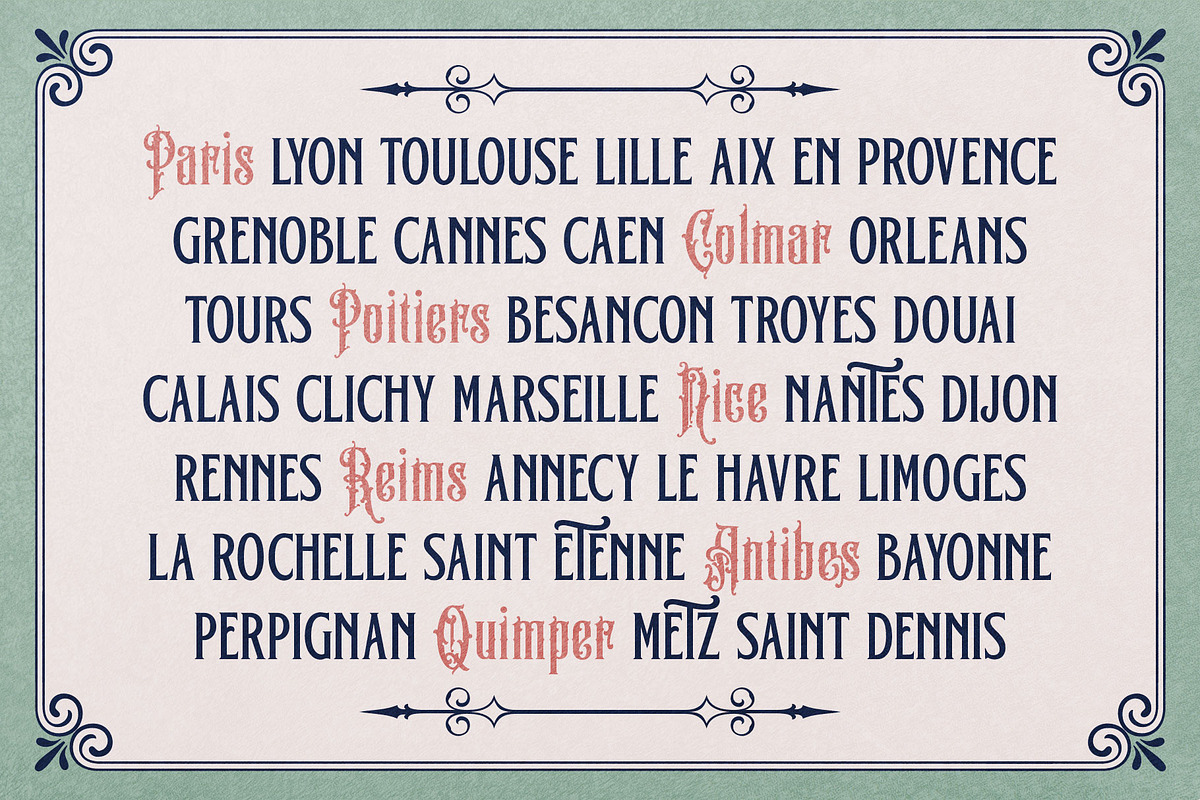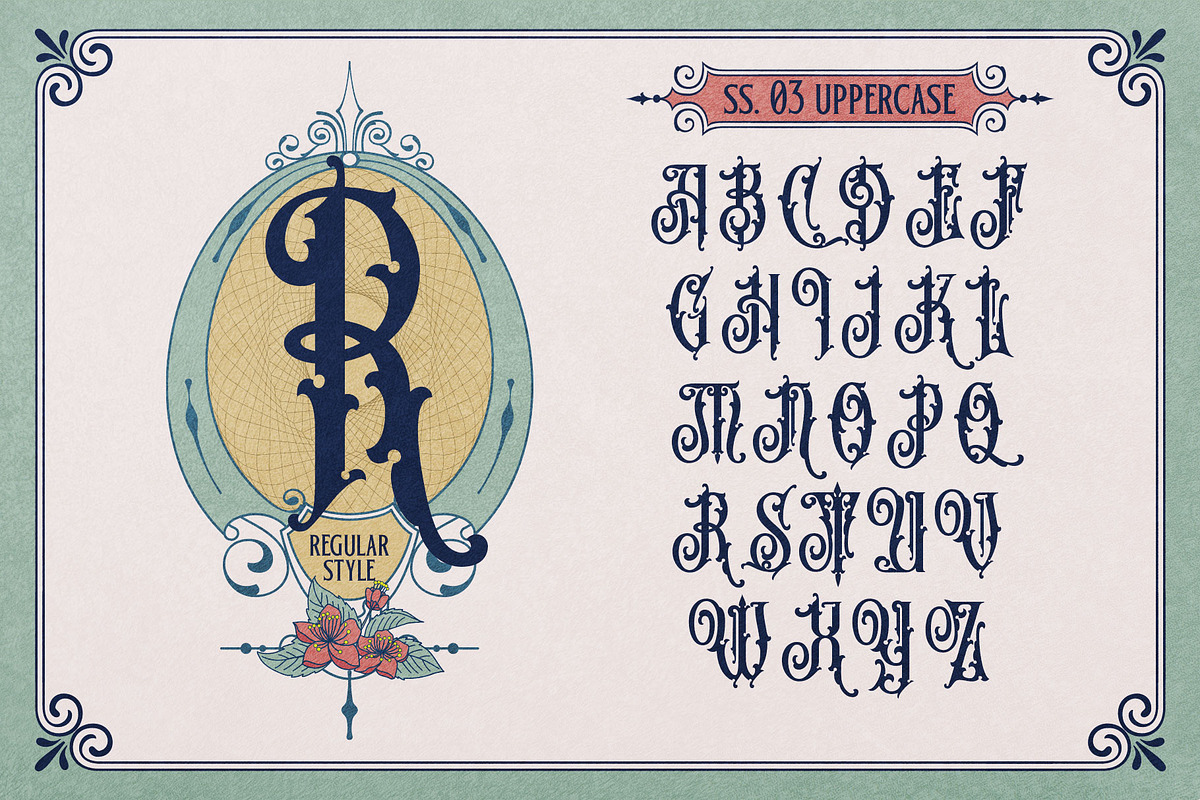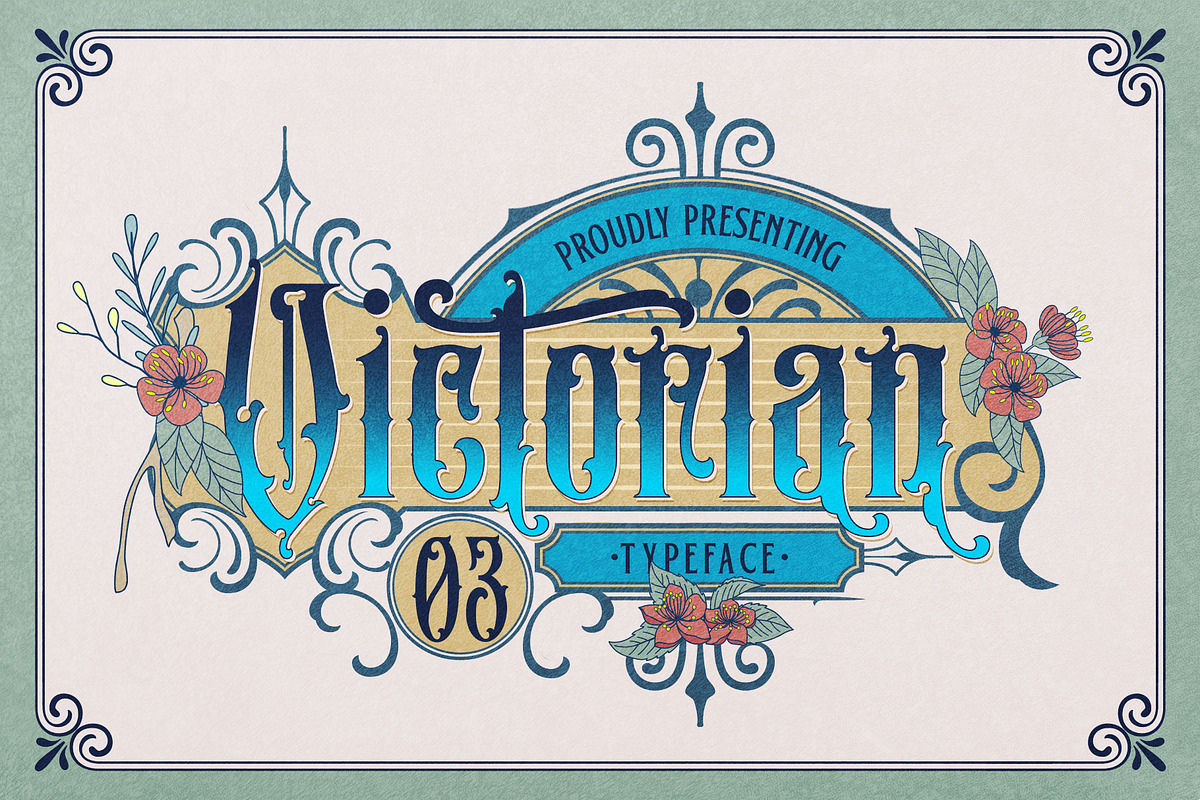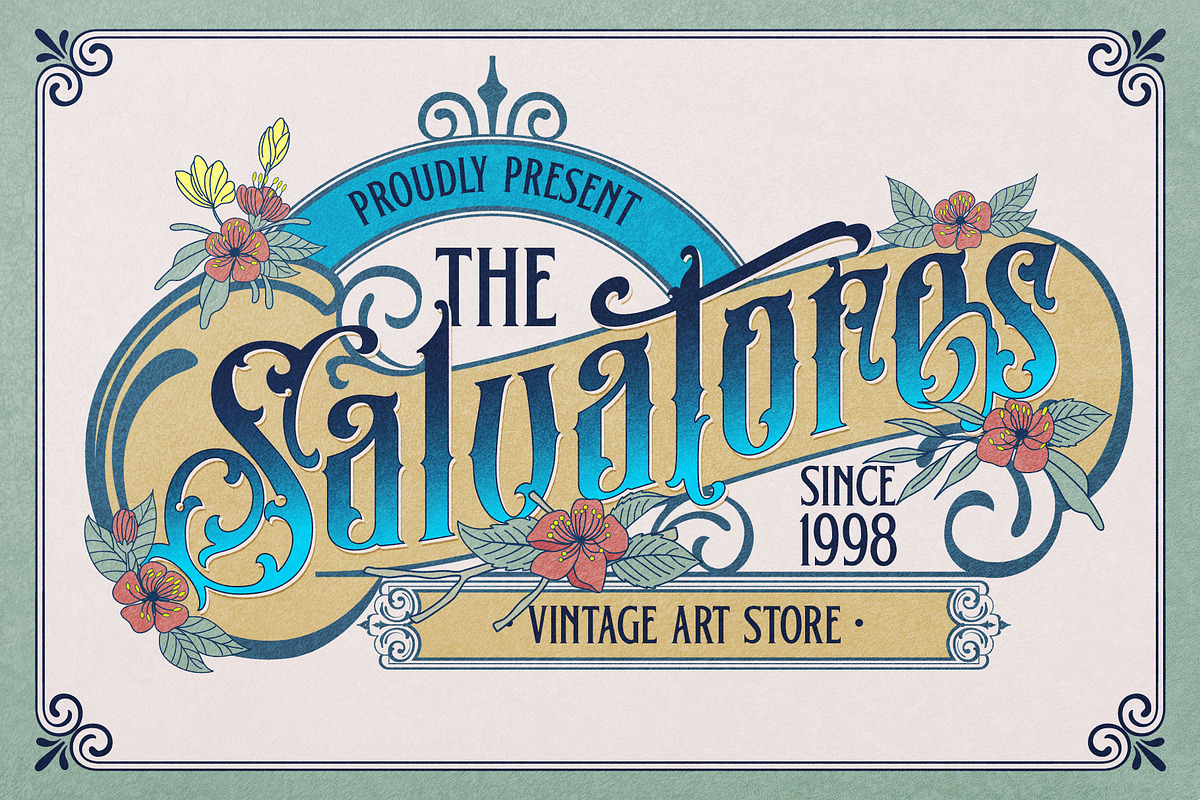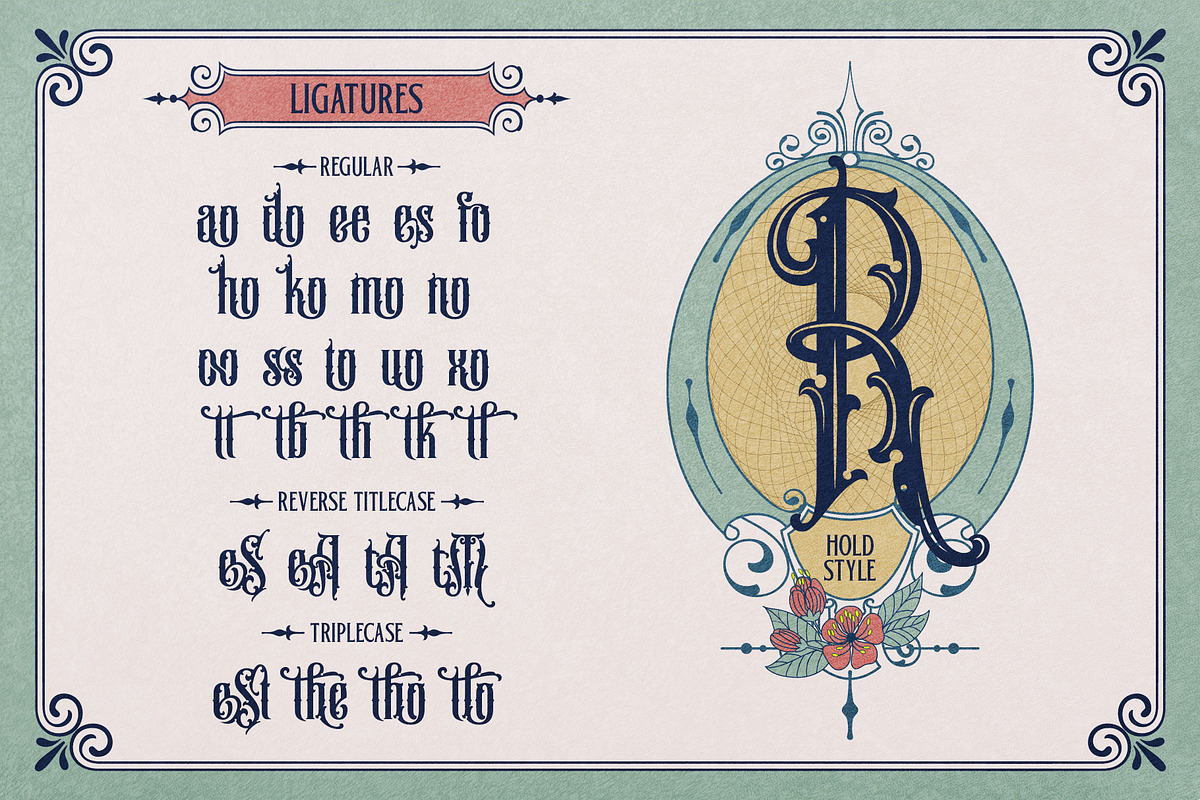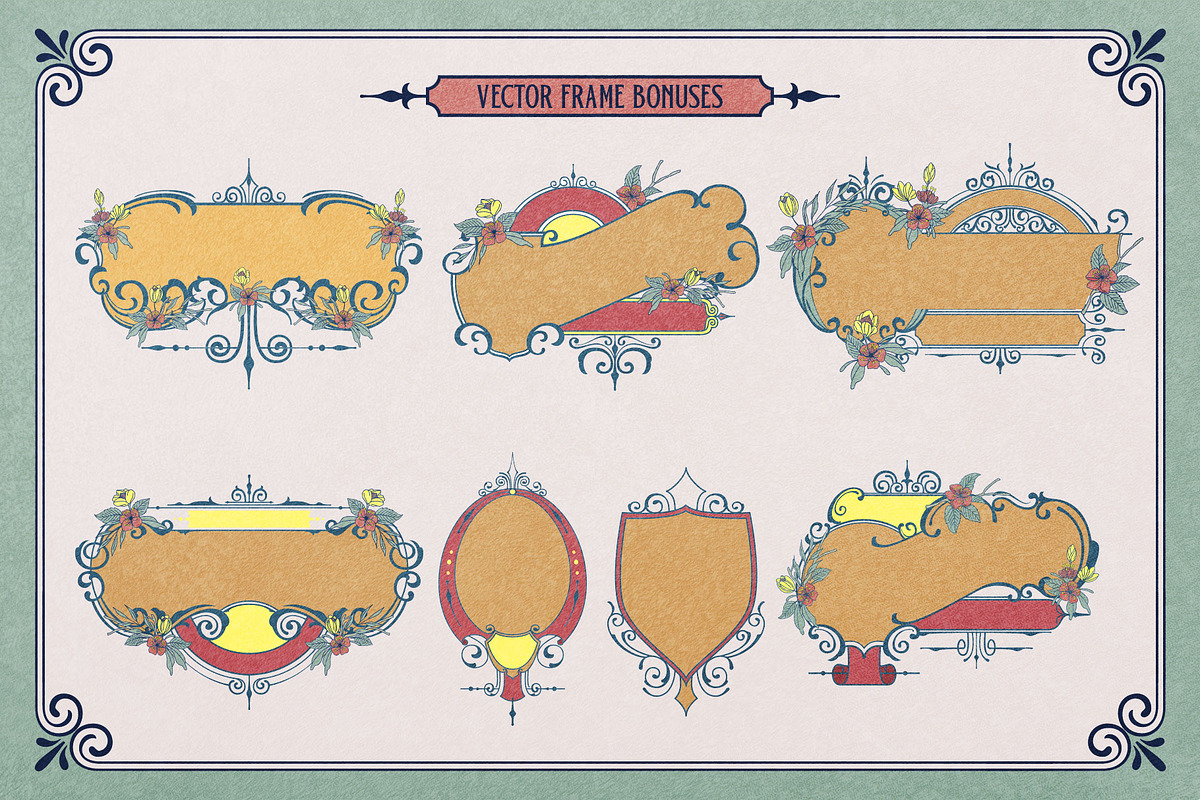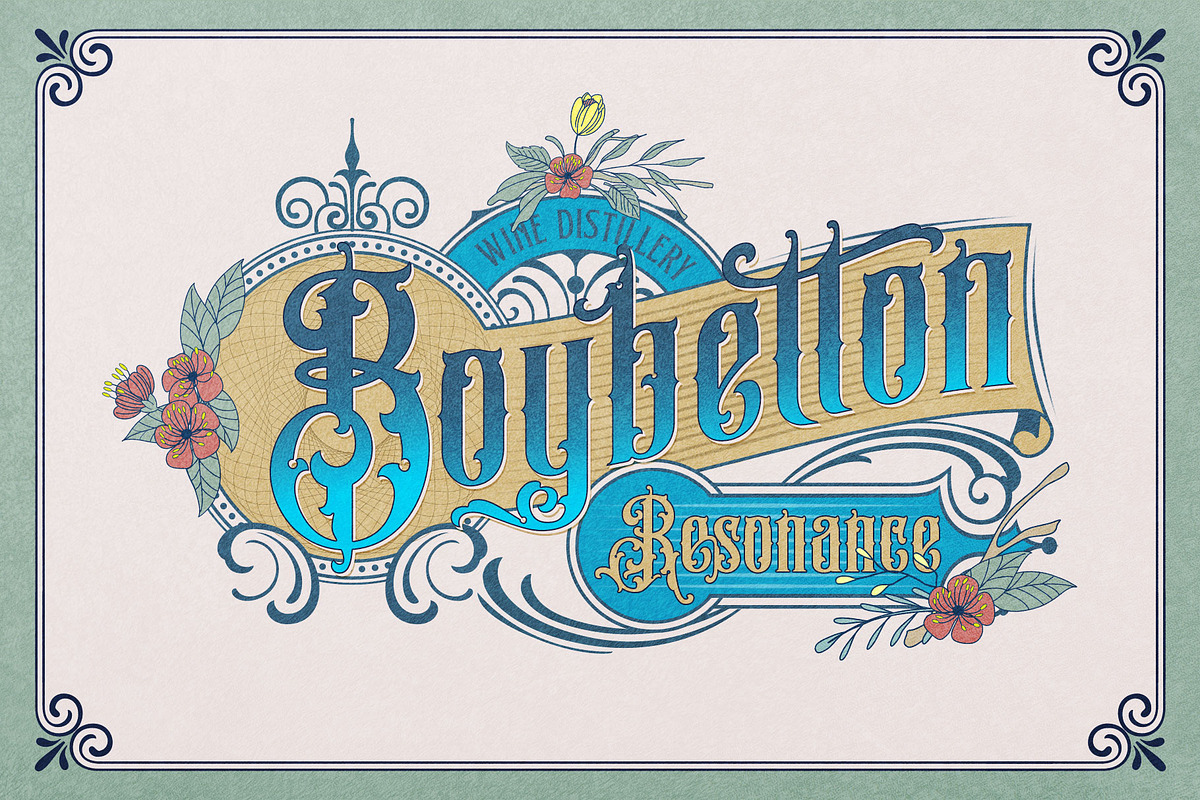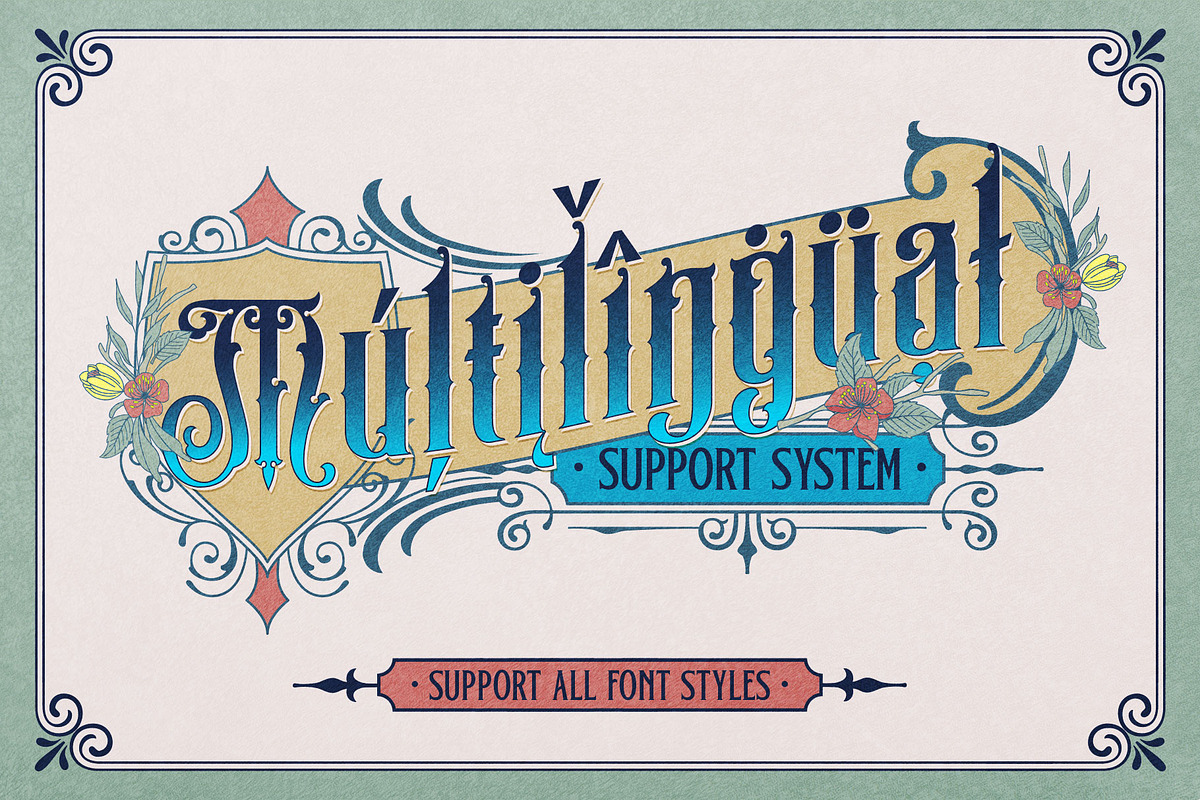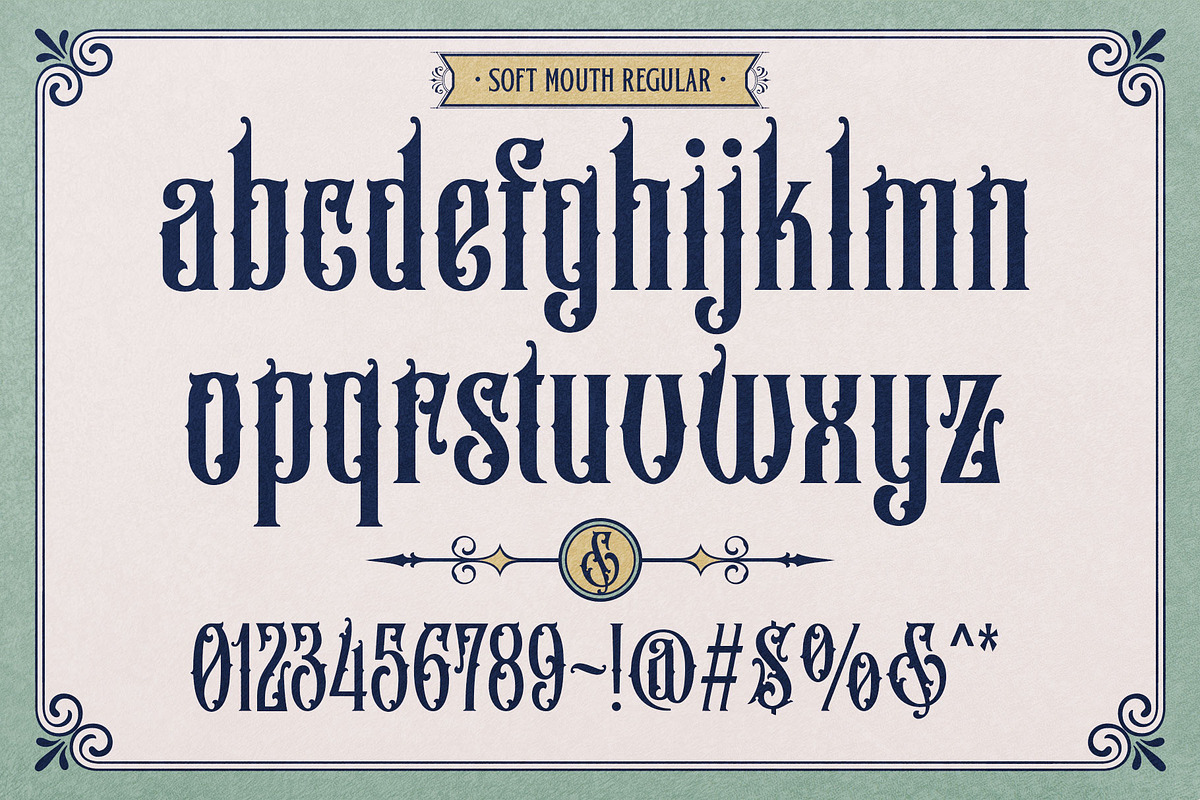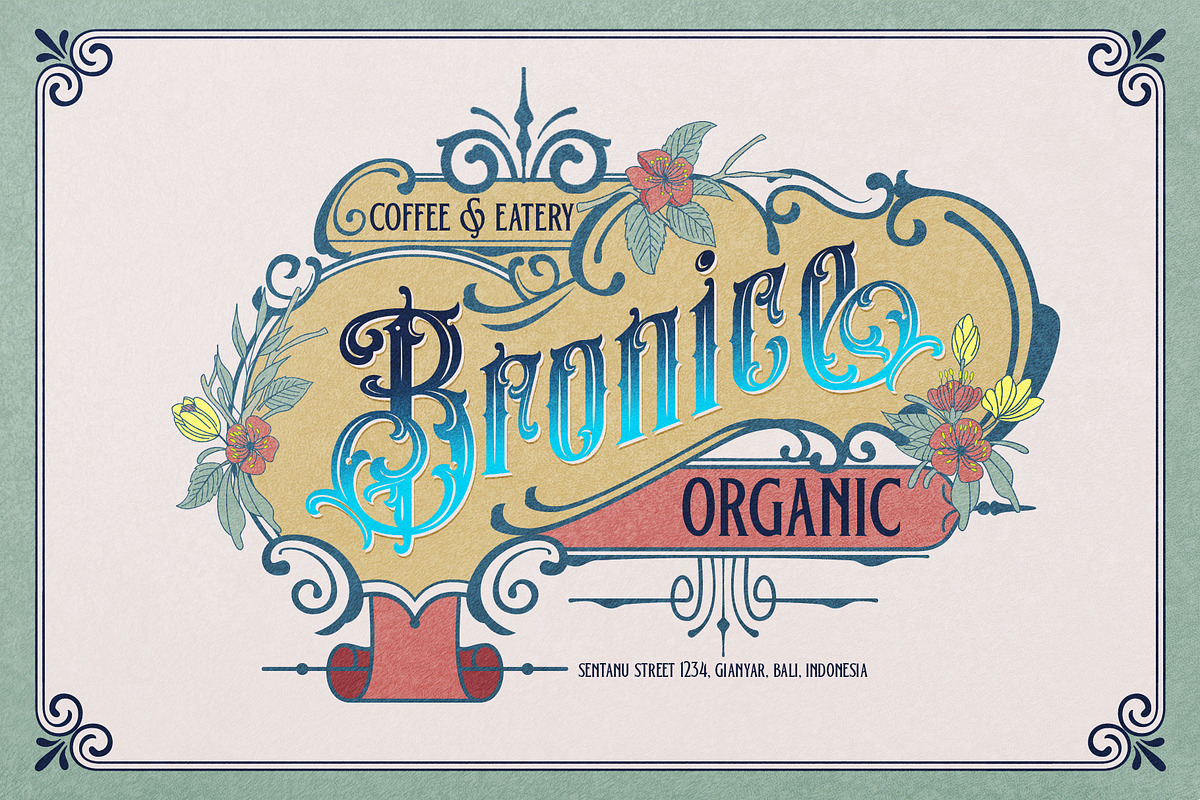
Soft Mouth Victorian Typeface
Introducing the stunning "Soft Mouth Victorian Typeface," a font that encapsulates the essence of Victorian elegance. This font style exudes an air of refinement and opulence, perfect for adding a touch of grandeur to your design projects.
The "Soft Mouth Victorian Typeface" offers a versatile range of options with its four font families: Regular, Hole, Ornament, and Serif. The "Regular" font family serves as a reliable choice for everyday text, providing legibility and clarity. The "Hole" font family adds a unique twist, featuring intricate designs with hollowed-out letterforms, creating an intriguing visual effect. The "Ornament" font family boasts exquisite decorative elements, allowing you to embellish your designs with ornate flourishes. Lastly, the "Serif" font family offers a classic and refined aesthetic, perfect for evoking a sense of tradition and sophistication.
This typeface includes a comprehensive set of ligatures and alternates, enabling seamless connections between letters and enhancing the overall flow and visual harmony of your text. With an impressive collection of 666 glyphs, you'll have an extensive range of characters and symbols at your disposal, allowing you to unleash your creativity and experiment with various typographic compositions.
As an added bonus, the "Soft Mouth Victorian Typeface" comes bundled with bonus features. You'll find a selection of beautifully crafted frames that can be used to accentuate and highlight specific content within your designs. Additionally, delicate and enchanting flower ornaments are included, offering an exquisite touch of natural beauty to enhance your typographic arrangements.
Whether you're working on elegant invitations, branding projects that require a touch of vintage sophistication, or creating elaborate typographic artworks, the "Soft Mouth Victorian Typeface" is a must-have resource. Its Victorian elegance, extensive features such as ligatures and alternates, a rich collection of 666 glyphs, and the added bonus of frames and floral embellishments, make it an invaluable asset for bringing a sense of timeless charm to your creative endeavors.